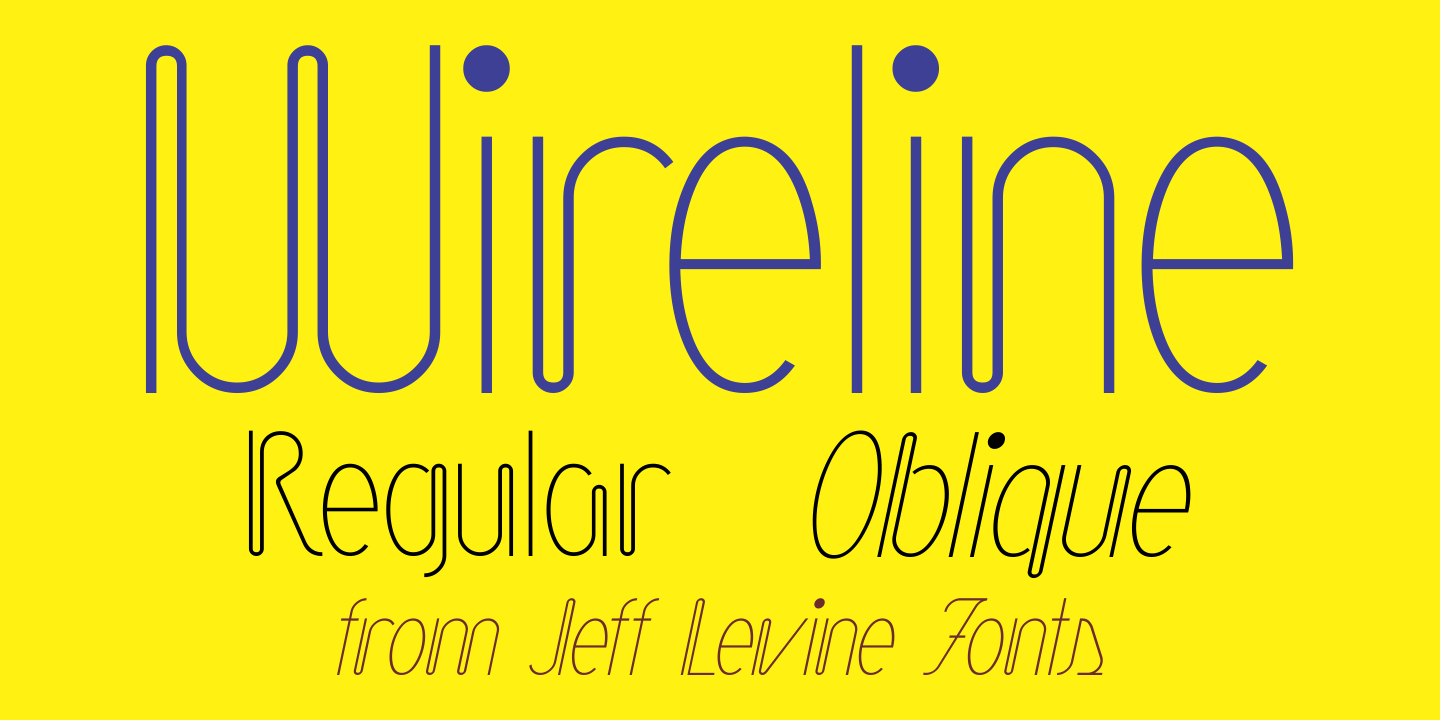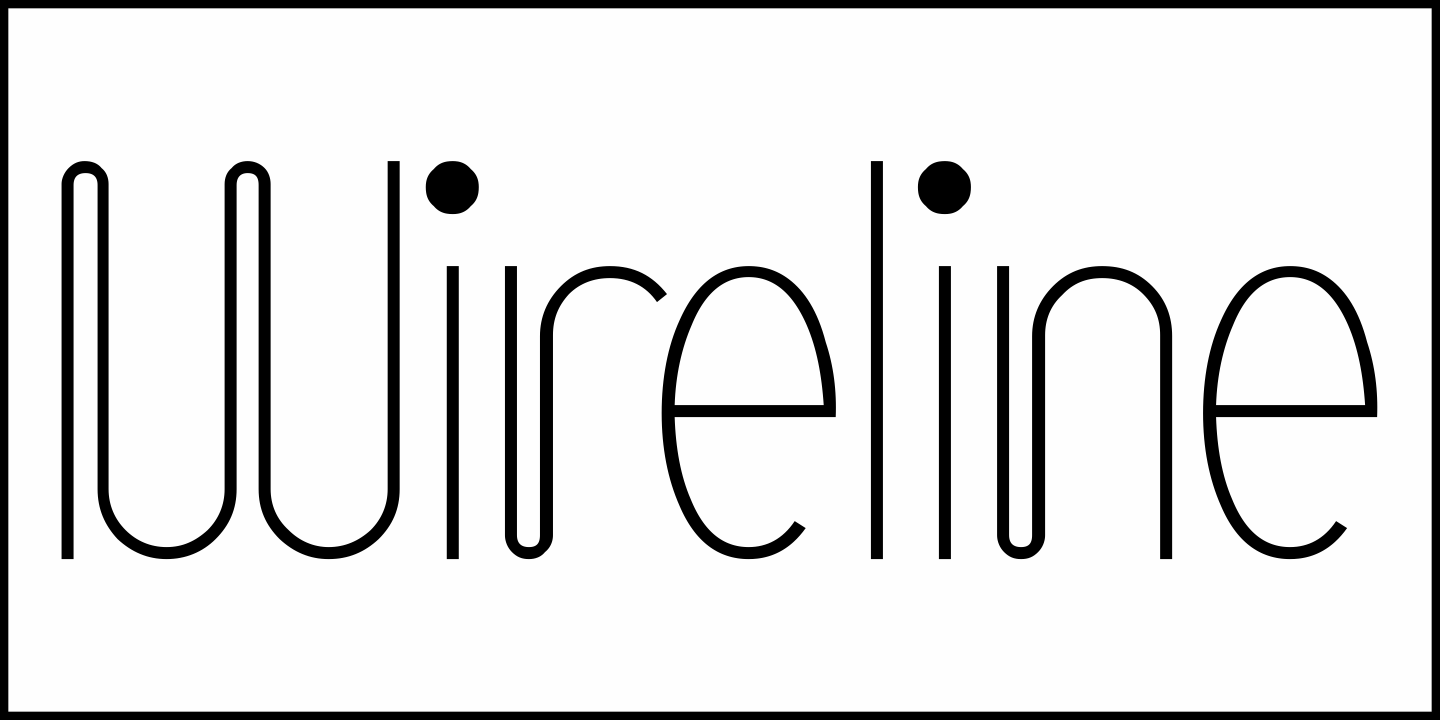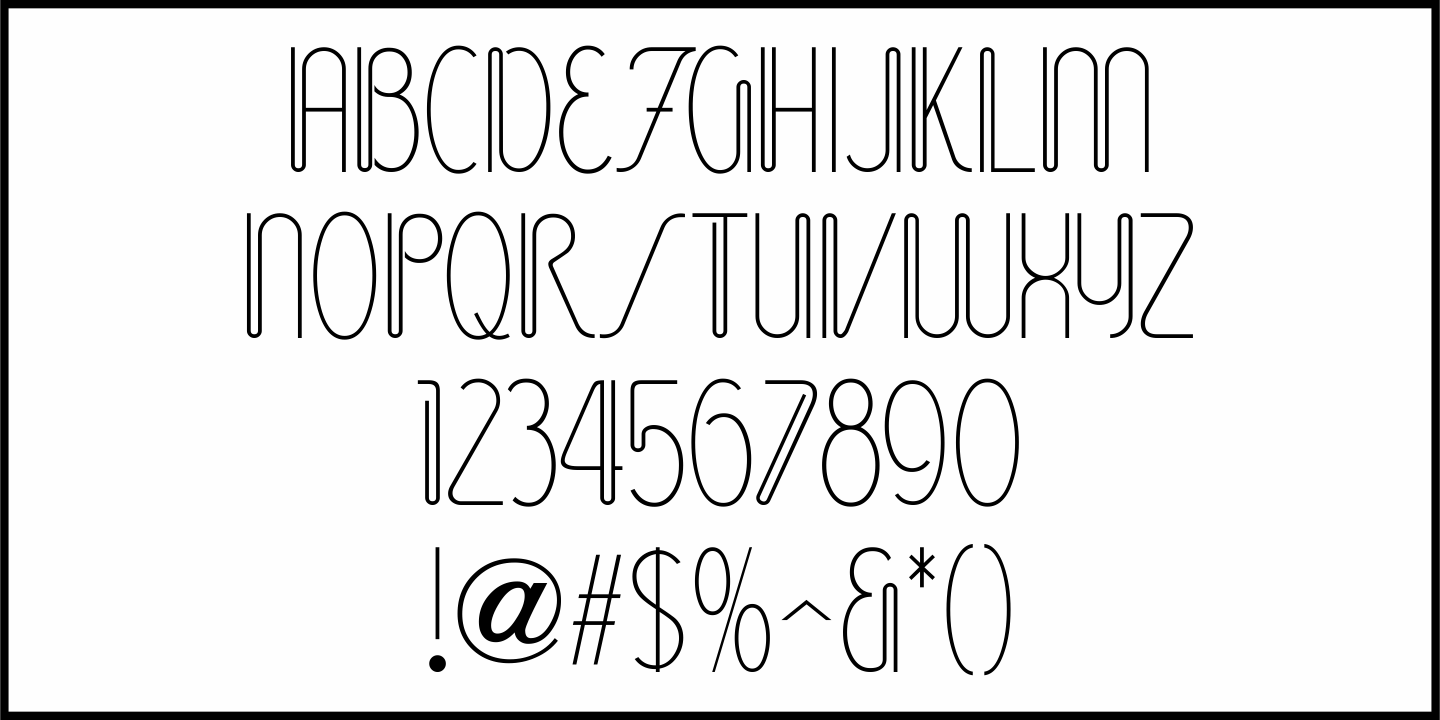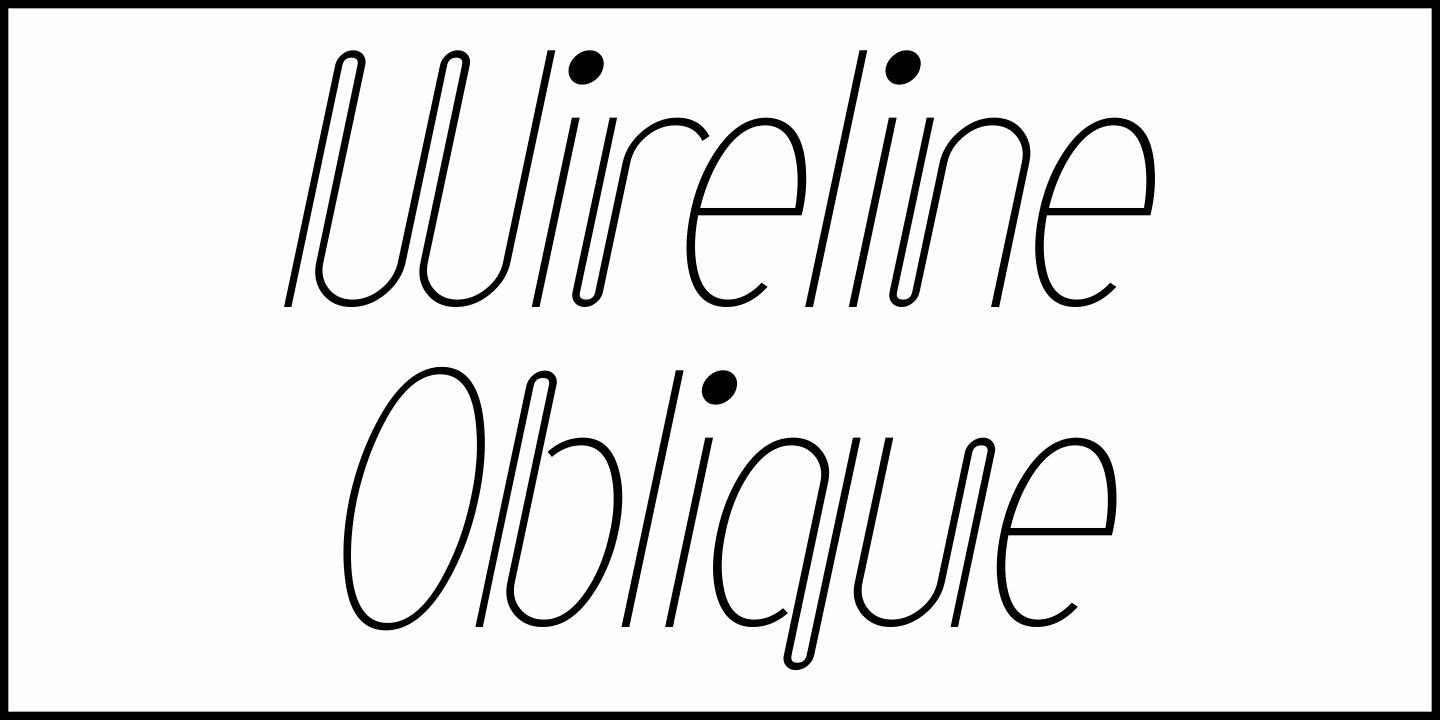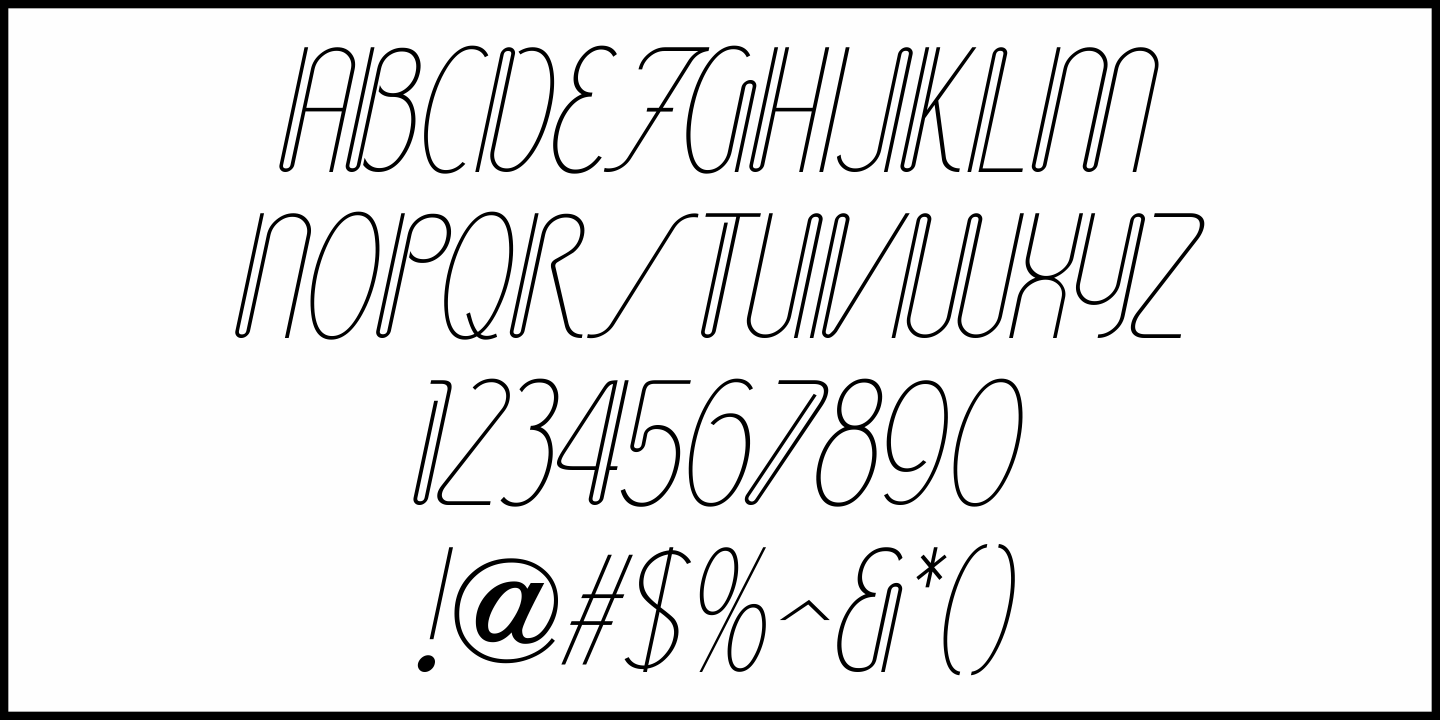
Wireline
Inspired (in part) by a vintage photo of a storefront neon sign for Cushman's Furs, Wireline JNL is a thin monoline font with the appearance of bent wire characters.
The font is available in both regular and oblique versions.